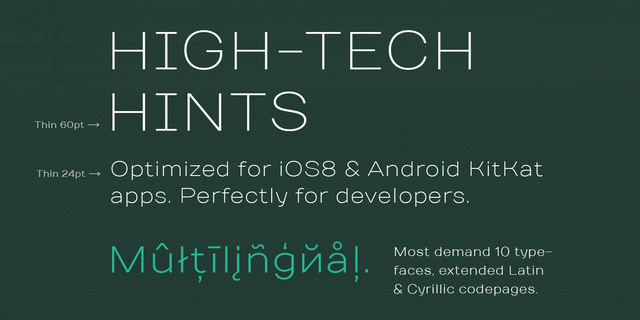
TT Days Sans (10 fonts)
About TT Days Sans is a qualitative reincarnation of the legendary free font Days. Now it is a modern interpretation of an old font. We added in this fontfamily new typefaces and support for many codepages and languages. The fonts are very convenient to use in web, mobile apps and in desktop computers. The font family Days Sans contains many languages and alphabets, as well as compatible with other TypeType fonts. Typeface designed by Ivan Gladkikh in TypeType studio in 2014.
Features of font family TT Days SansThe hit of the decade:
Associations for font family TT Days SansTypeface personality and character:
laconic, engineering, accurate, logical, solid, flat, minimalistic, urban, high-quality, west, calm, modern, fashionable, comfortable, cold, thin, easy, clear, clean, weightless, transparent, smooth, glass, fragile, futuristic, wire, neon, business, simple, serious, stable, static, globalized, globalistic, available, technically, schematic, self-assured, reliable, sportive, important, convincing, manly, fast, resolute, railway, racing, high-speed, powerful, strong, authoritative, notable, heavy, industrial, technogenic, tough, sexy
device, gadget, design, scheme, purity, hygiene, shampoo, technology, perfumery, sky, equipment, innovations, science, Internet, mobile communications, IT specialist, IT, engineer, architecture, city, constructor, medicine, mathematics, coworking, business, transport, airport, Metro, medicines, money, bank note, finance, coin, car, police, bus, fuel, Delivery, logistics, sport, race, railway, speed, rally, weapons, protection, fitness equipment, machine tool, mechanical engineering, industry, energy industry, power station, Freight, truck, tool, motor, engine, show, TV, metallurgy, aviation, computer game Typeface associated with age: